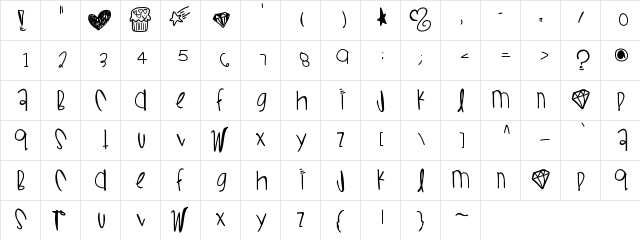
Complete WifiLoveBoo Medium glyph index. Displaying only characters natively supported by WifiLoveBoo Medium font.
WifiLoveBoo is a composed and adaptable typeface that performs quietly and consistently across a wide range of design contexts.